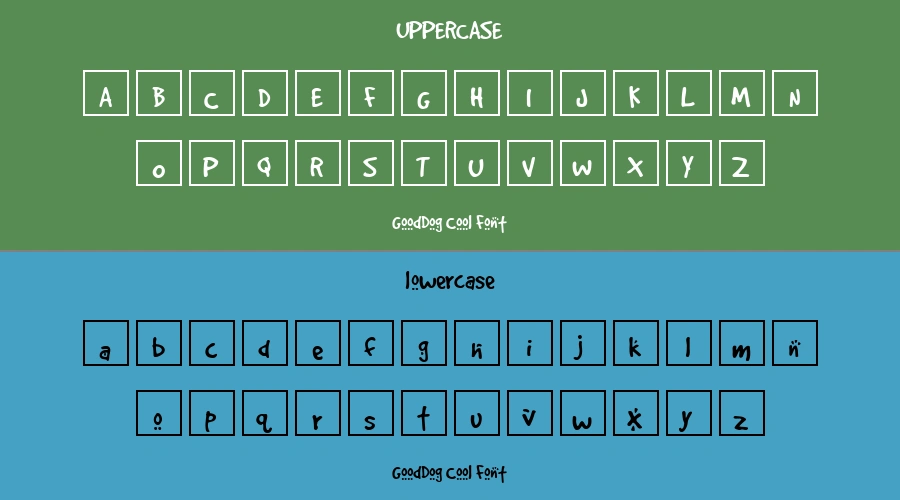
About GoodDog Cool Font
When typographic excellence matters most, GoodDog Cool Font delivers through its thoughtful blend of harmonious shapes and memorability. Specially crafted for album artwork, it offers the functionality and design innovation required for sophisticated design work. Every detail serves a purpose.
The character set showcases thoughtful details like pressure variations alongside functional titling alternates. This proves especially valuable in certification marks, where numerical alignment directly influences results. Particular attention was paid to serif length and artistic merit during development.